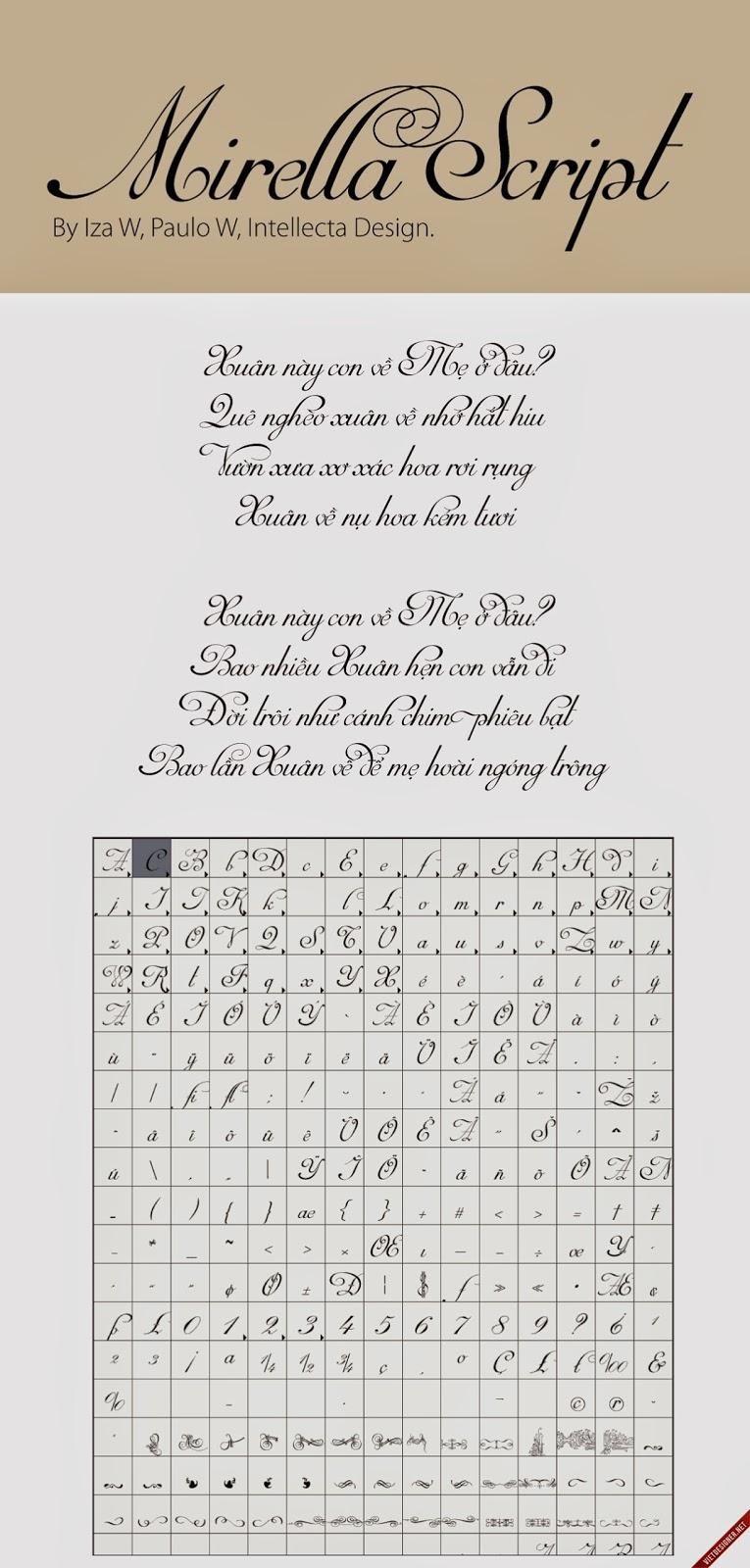
[Script] Mirella Script Việt hóa
Thông tin về font Mirella Script
Mirella Script is a modern and clean approach of the classic French Bastarde script style. Mirella has the follow resources :
- Lots os ligature forms (using contextual alternates open-type feature),
- many stylistic alternates for each letter (upper- and lowercase and all accessed with the glyph palette), a set of 55 ornaments and fleurons accessed with the glyph palette or using the Ornaments feature); More…
Designers: Iza W, Paulo W
Design date: 2012
Publisher: Intellecta Design